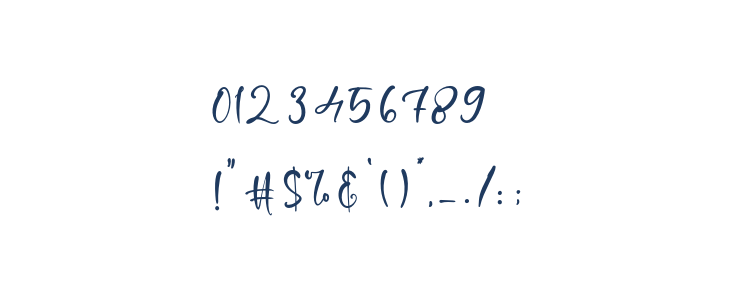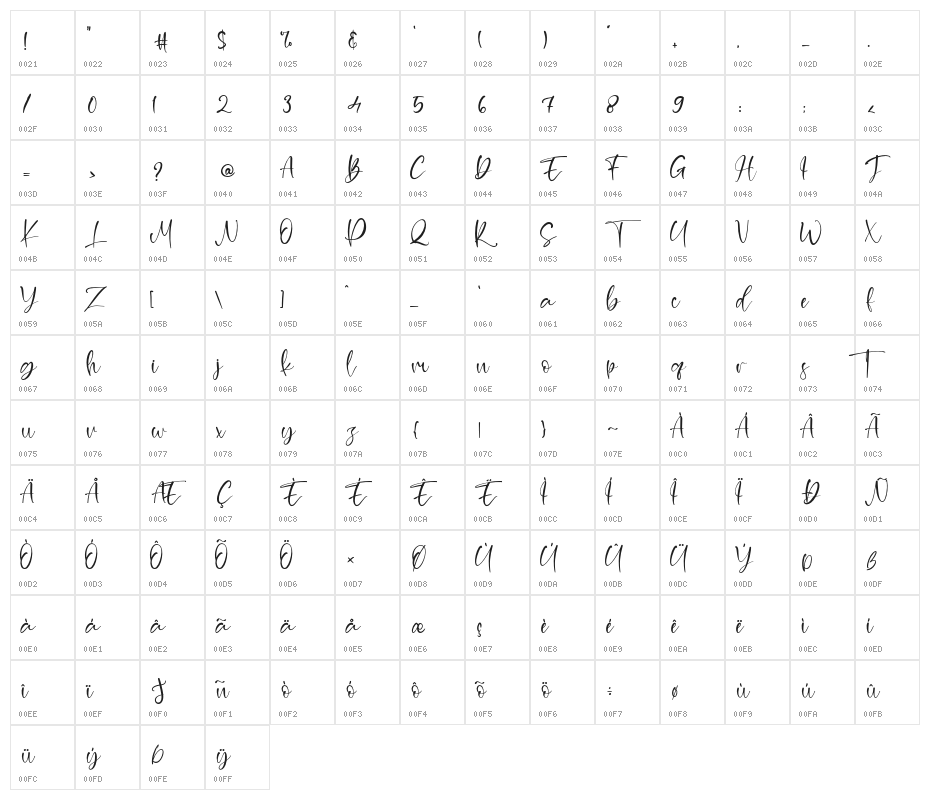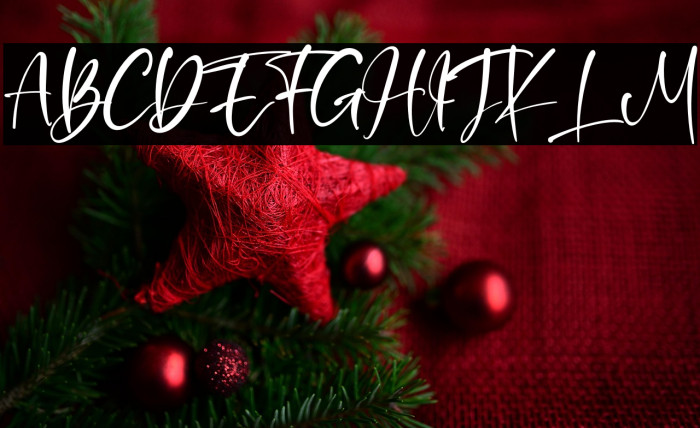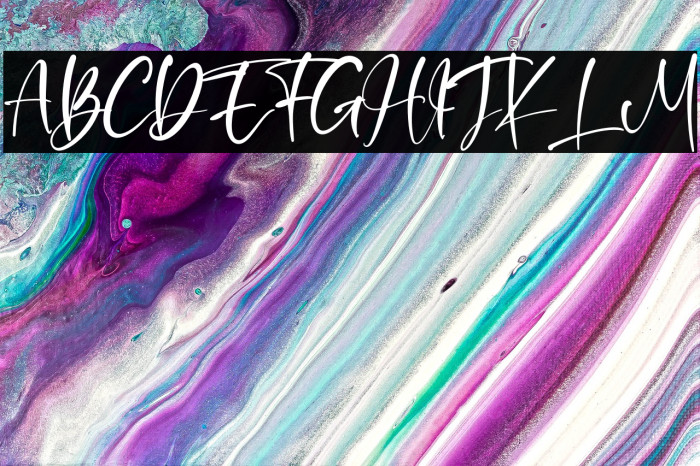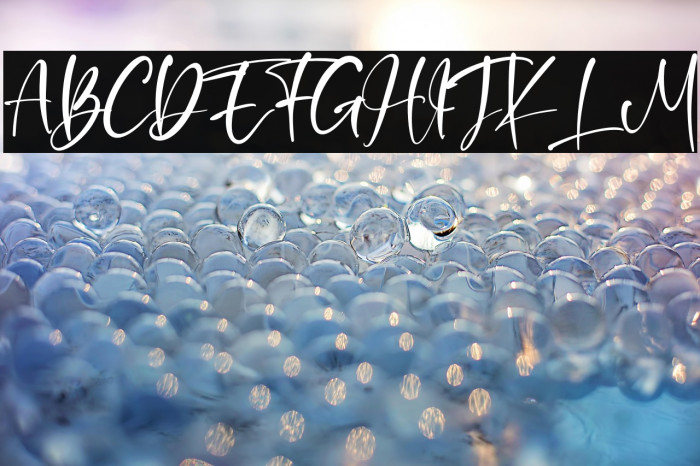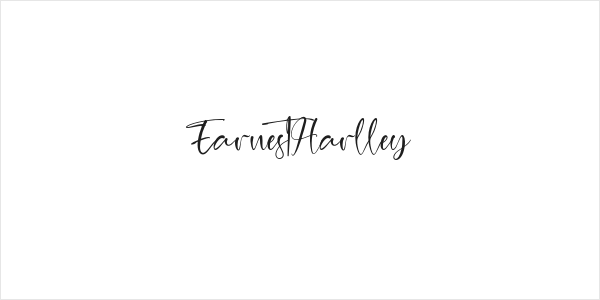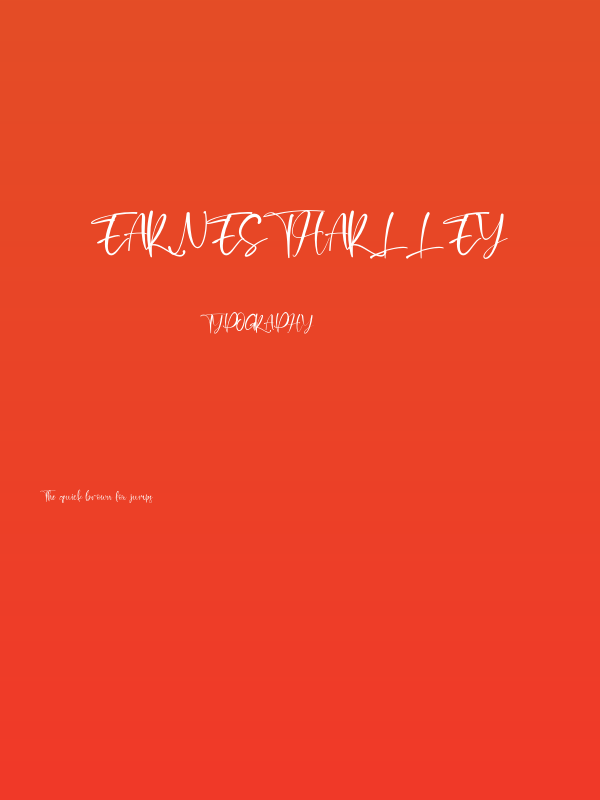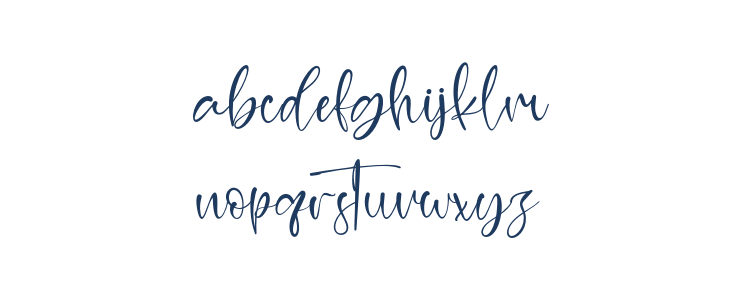
EarnestHarlley Font
EarnestHarlley Description
This font exhibits a lively and expressive handwritten style, characterized by its fluid and dynamic strokes. The uppercase letters are bold and slightly irregular, giving a sense of movement and spontaneity. The lowercase letters maintain a consistent flow, with some letters featuring loops and swashes that add to the overall playful aesthetic. Numbers and special characters are crafted with the same energetic flair, ensuring a cohesive look across all glyphs. The font's unique personality makes it suitable for creative and informal applications, where a touch of personal expression is desired.